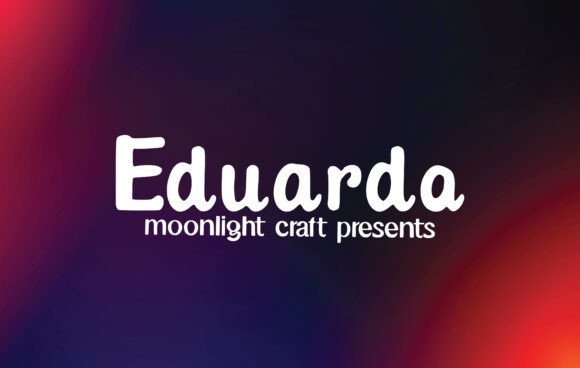
Eduardo Font: Elevate Your Creative Ideas with this Lovely Handwritten Font
Eduardo Font is a stunning handwritten font that has the potential to take your creative ideas to new heights. With its unique and elegant style, this font is perfect for creating eye-catching logos, branding, and quotes that will leave a lasting impression on your audience. In this article, we’ll dive into the features and benefits of Eduardo Font, and explore how it can help you elevate your design game.
What is Eduardo Font?
Eduardo Font is a beautiful handwritten font that is designed to add a touch of elegance and sophistication to your designs. This font is carefully crafted to provide a unique and distinctive look that sets it apart from other fonts. With its flowing lines and curves, Eduardo Font is perfect for creating designs that require a personal and human touch.
Key Features of Eduardo Font
- Handwritten style: Eduardo Font has a beautiful handwritten style that gives it a personal and unique touch.
- Elegant and sophisticated: This font is designed to add a touch of elegance and sophistication to your designs.
- Perfect for logos and branding: Eduardo Font is ideal for creating eye-catching logos and branding that will help you stand out from the competition.
- Great for quotes and typography: This font is also perfect for creating stunning quotes and typography that will add a touch of elegance to your designs.
- Easily readable: Eduardo Font is designed to be easily readable, making it perfect for use in a variety of design projects.
Benefits of Using Eduardo Font
There are many benefits to using Eduardo Font in your design projects. Here are just a few:
- Adds a personal touch: Eduardo Font adds a personal and human touch to your designs, making them more relatable and engaging.
- Stand out from the competition: With its unique and elegant style, Eduardo Font can help you stand out from the competition and establish a strong brand identity.
- Perfect for creative projects: This font is ideal for creative projects, such as designing logos, branding, and quotes.
- Easily customizable: Eduardo Font is easily customizable, allowing you to adjust the font to suit your design needs.
How to Use Eduardo Font
Using Eduardo Font is easy. Here are just a few tips to get you started:
- Use it for logos and branding: Eduardo Font is perfect for creating eye-catching logos and branding that will help you establish a strong brand identity.
- Create stunning quotes: This font is also great for creating stunning quotes and typography that will add a touch of elegance to your designs.
- Experiment with different colors: Eduardo Font looks great in a variety of colors, so don’t be afraid to experiment and find the perfect color for your design.
- Pair it with other fonts: You can also pair Eduardo Font with other fonts to create a unique and interesting design.
Tips for Getting the Most Out of Eduardo Font
Here are a few tips for getting the most out of Eduardo Font:
- Use it sparingly: While Eduardo Font is a beautiful font, it’s best to use it sparingly to avoid overwhelming your design.
- Experiment with different sizes: Eduardo Font looks great in a variety of sizes, so don’t be afraid to experiment and find the perfect size for your design.
- Pay attention to spacing: Make sure to pay attention to spacing when using Eduardo Font to ensure that your design looks clean and elegant.
| Font Name | Eduardo Font |
Eduardo Font is a beautiful handwritten font that has the potential to take your creative ideas to new heights. With its unique and elegant style, this font is perfect for creating eye-catching logos, branding, and quotes that will leave a lasting impression on your audience. Whether you’re a designer, artist, or simply someone who loves typography, Eduardo Font is a great addition to your font collection.
- What is Eduardo Font?: Eduardo Font is a beautiful handwritten font designed to add a touch of elegance and sophistication to your designs.